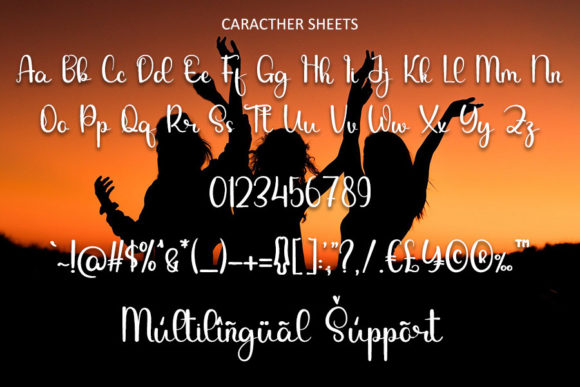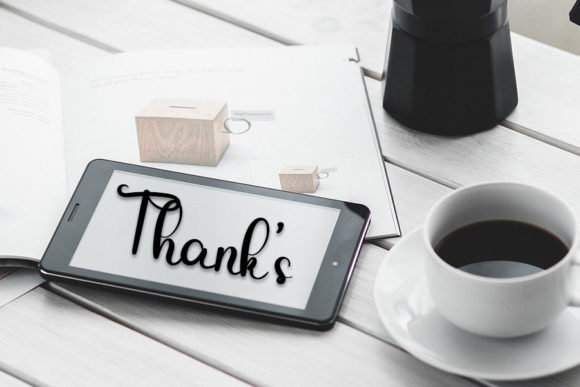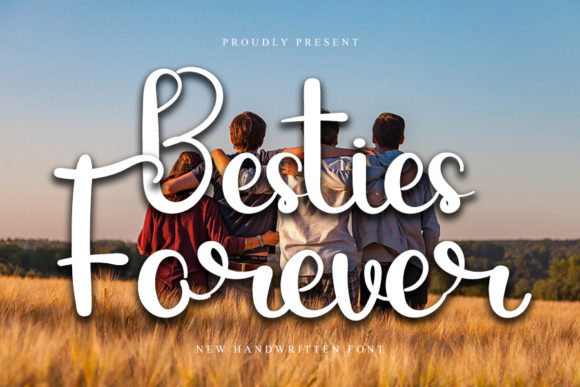
The Ultimate Guide to Besties Forever Font: Elevate Your Designs with Style
I’ll never forget the time I was working on a project for a client who wanted a custom wedding invitation. I had spent hours browsing through font libraries, but nothing seemed quite right. That was until I stumbled upon Besties Forever Font. It was love at first sight! 💕 The elegant, handwritten strokes and contemporary vibe instantly captured the essence of the couple’s special day. In this article, I’ll share my experience with Besties Forever Font, its features, and how to make the most of it in your designs.
An Honest Review of Besties Forever Font
- ✨ Balanced and varied strokes: Besties Forever Font has a perfect balance of thin and thick strokes, making it easy to read and visually appealing.
- ✅ Impeccable form: The font’s classic calligraphy inspiration gives it a timeless elegance that works well for a variety of projects.
- 💫 Contemporary atmosphere: Despite being inspired by classic calligraphy, Besties Forever Font has a modern twist that makes it perfect for current design trends.
While Besties Forever Font is an excellent choice for many projects, there are a few things to keep in mind:
- 🤔 Limited use in very small sizes: Due to its elegant and cursive nature, Besties Forever Font may not be the best choice for very small text sizes, such as body text or captions.
- ⚠️ Occasional kerning issues: As with any font, you may encounter some kerning issues, especially when using it in combination with other fonts. Make sure to adjust the kerning to achieve the best results.
A Practical Guide to Using Besties Forever Font
The Backstory of Besties Forever Font
Besties Forever Font was designed with the intention of creating a modern, elegant script font that captures the essence of timeless classic calligraphy. The designer aimed to create a font that is not too thin and not too thick, but rather balanced and varied, making it perfect for a wide range of projects.
Q: What type of projects is Besties Forever Font best suited for?
A: Besties Forever Font is versatile and can be used for various projects, including wedding invitations, branding, posters, flyers, and social media graphics.
Q: Is Besties Forever Font suitable for body text?
A: While Besties Forever Font is elegant and easy to read, it may not be the best choice for body text due to its cursive nature. It’s better suited for headings, titles, or short paragraphs.